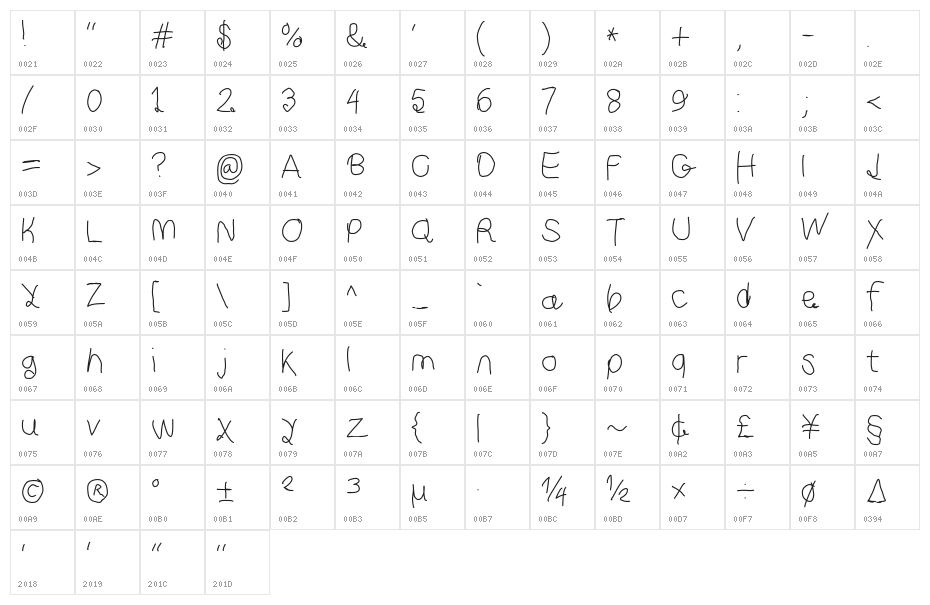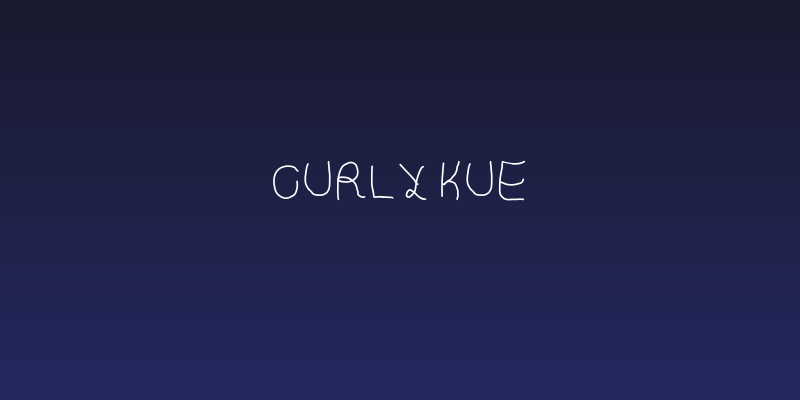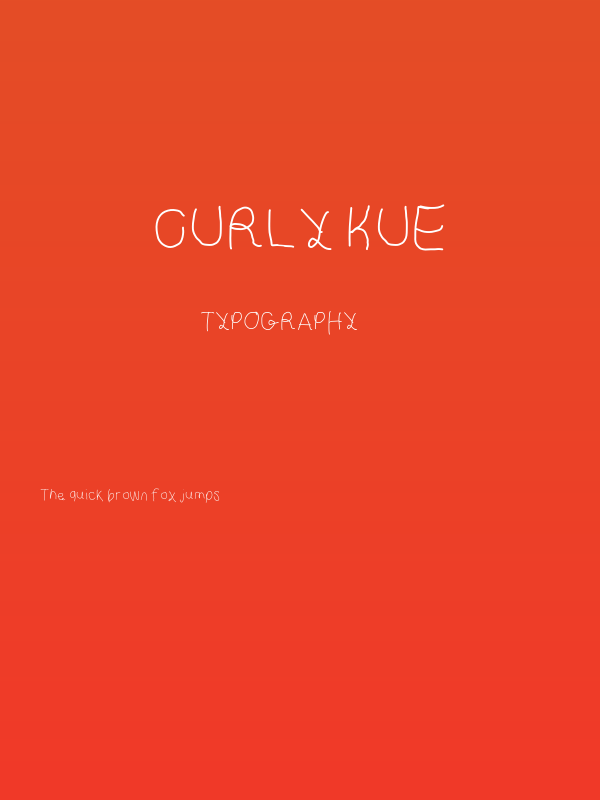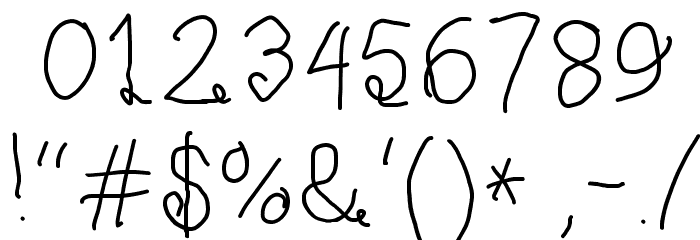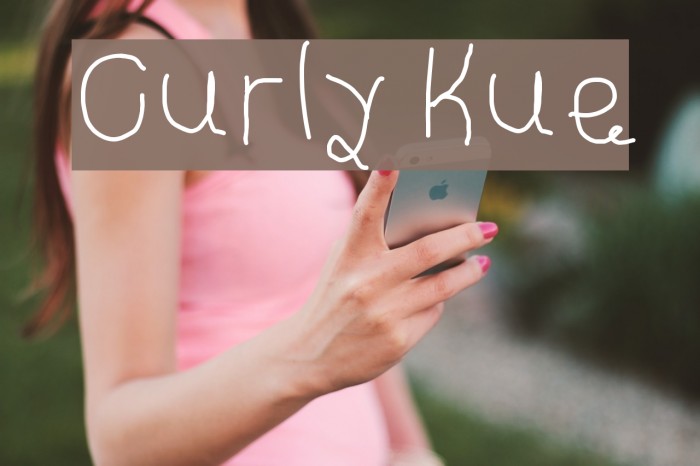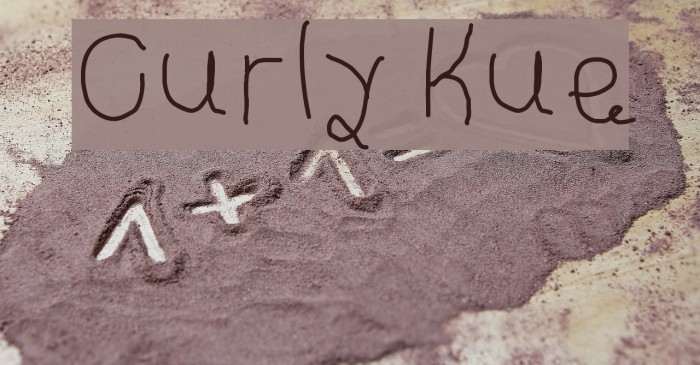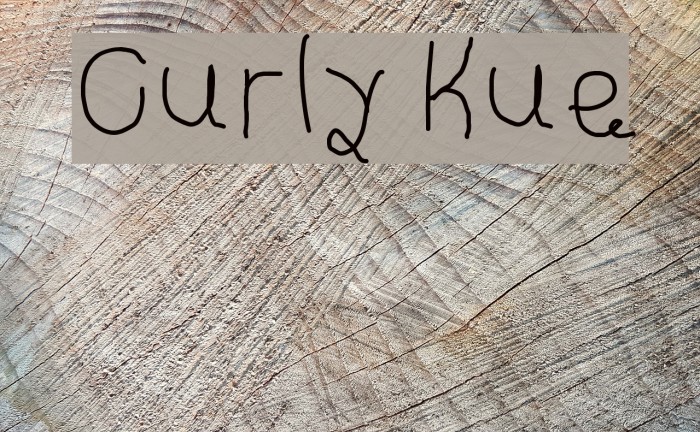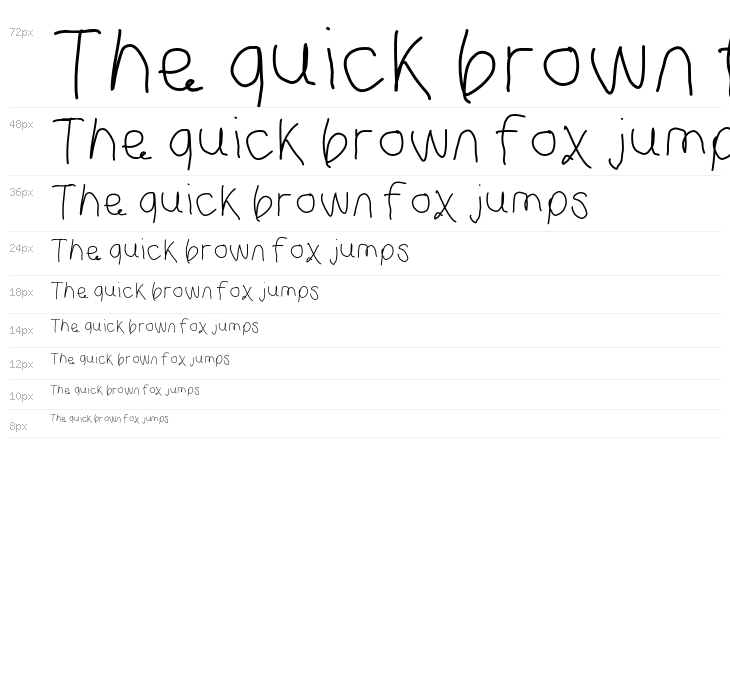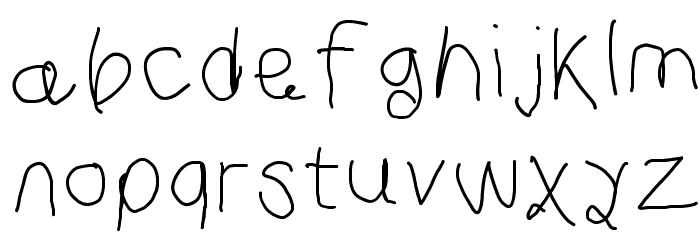
Curly Kue Font
Curly Kue Description
This font features a playful and whimsical handwritten style, characterized by its curly and looping strokes. The letters have a casual and informal appearance, with a consistent flow that mimics natural handwriting. The uppercase and lowercase letters maintain a cohesive look, while the numerals and special characters integrate seamlessly with the overall design. The font's unique charm is enhanced by its slightly irregular lines, giving it a personal and approachable feel. It's perfect for projects that require a touch of personality and creativity.
| Proposed Projects | Ideal for greeting cards, children's books, playful branding, and creative invitations. |